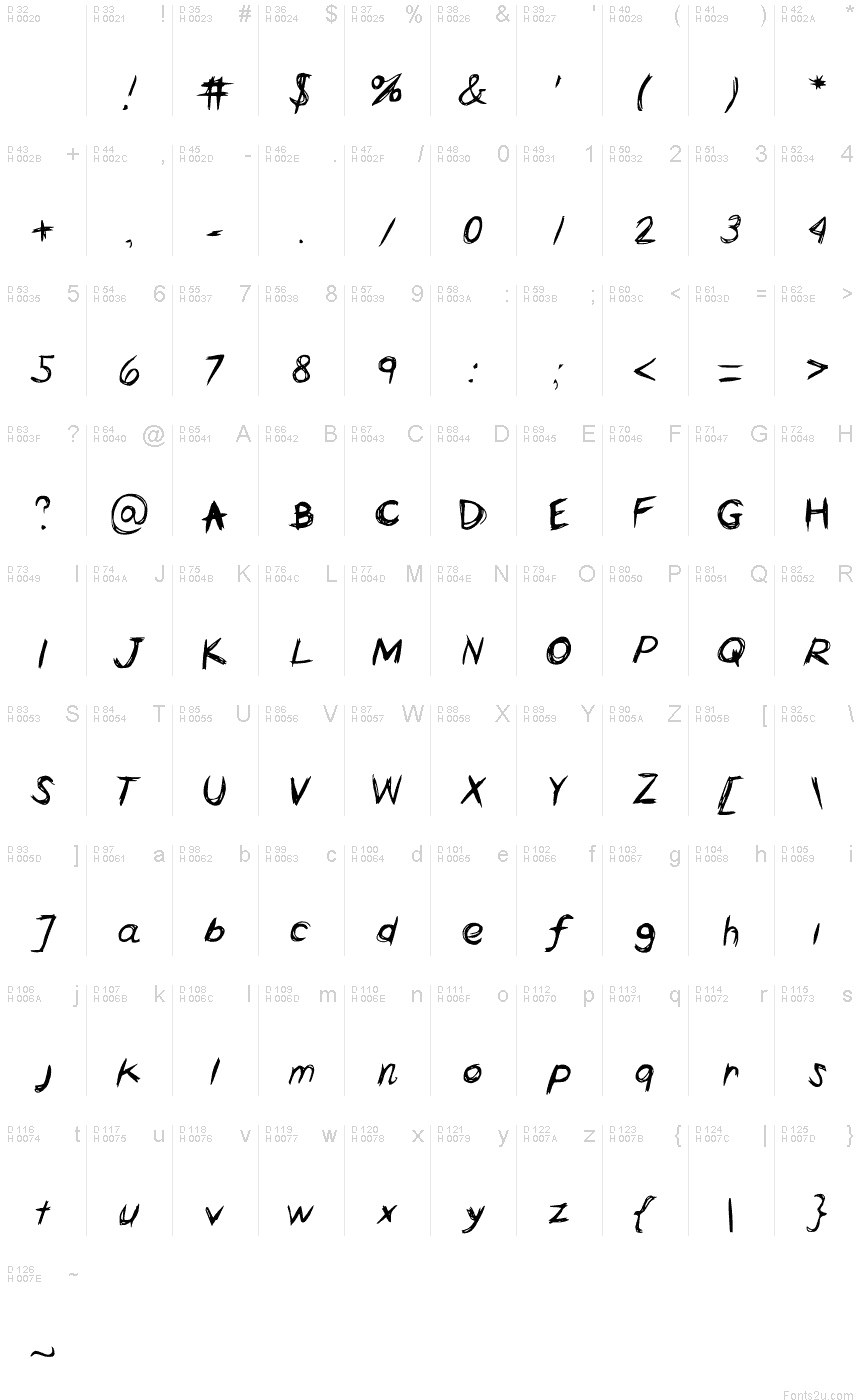
Horror Scribbles is a free scary display font with the raw edge of hurried marker lettering. Its tall, uneven letters lurch between blunt wedges and needle-like points, with stray cutouts and rough interior gaps adding a scratched, restless texture.
Haunted attractions gain the look of a handmade warning from this lettering. It also suits horror film promotions, Halloween packaging, punk merchandise, and game title screens, especially when the artwork leans into grime, monsters, or improvised signs. The irregular silhouettes can become part of a horror brand's imagery, echoing claw marks and hastily painted warning signs.
Created by MyScriptFont.com